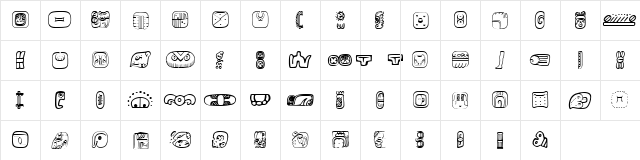
MesoAmerica Dings Four Regular
Design Context for MesoAmerica Dings Four Typeface
MesoAmerica Dings Four is a composed and adaptable typeface that performs quietly and consistently across a wide range of design contexts.